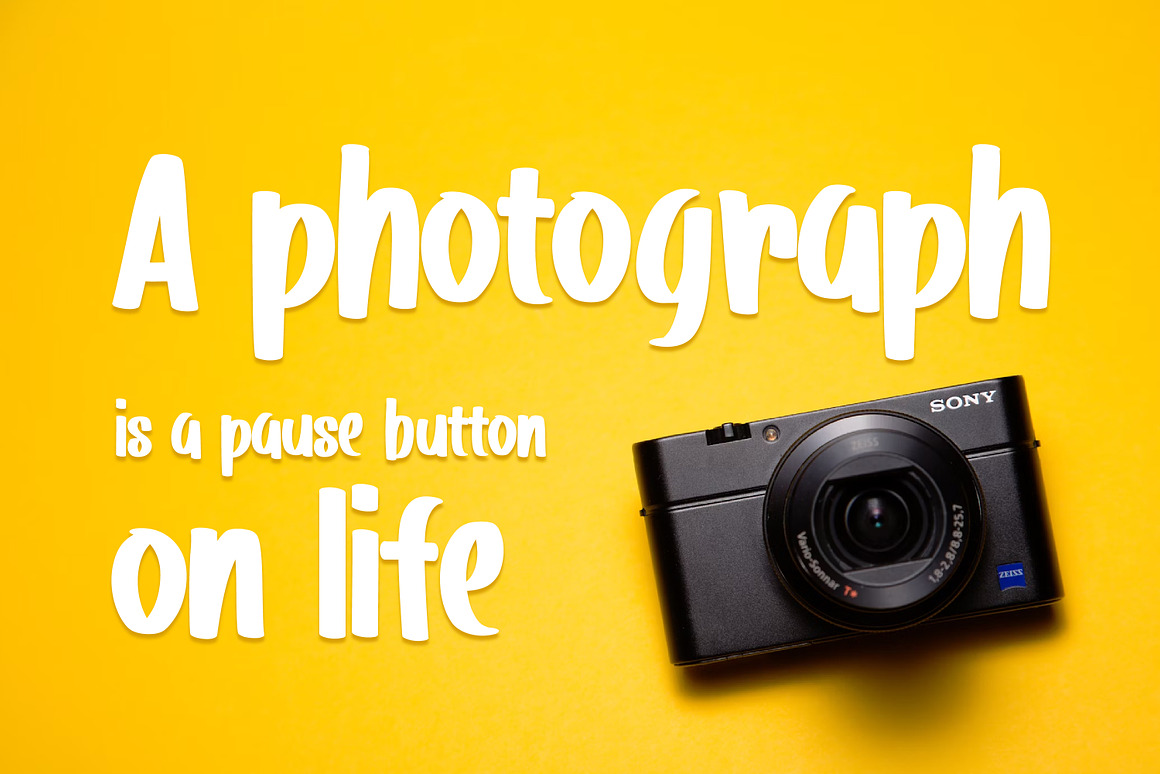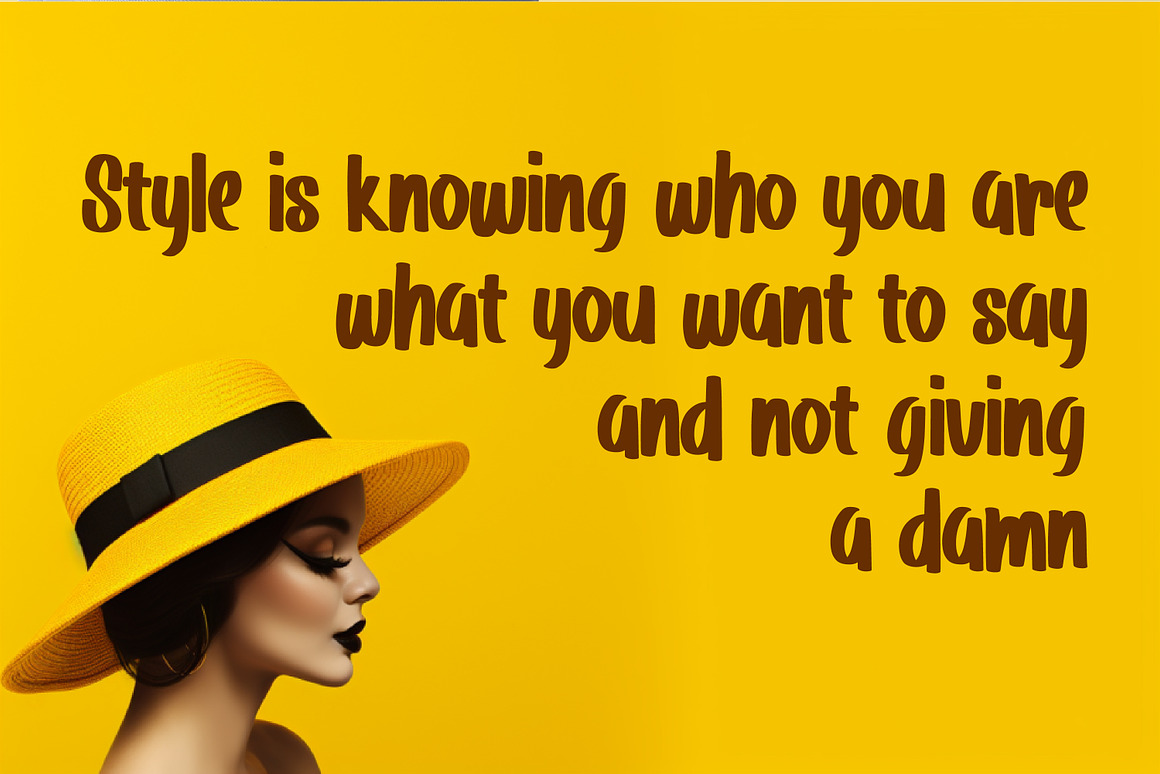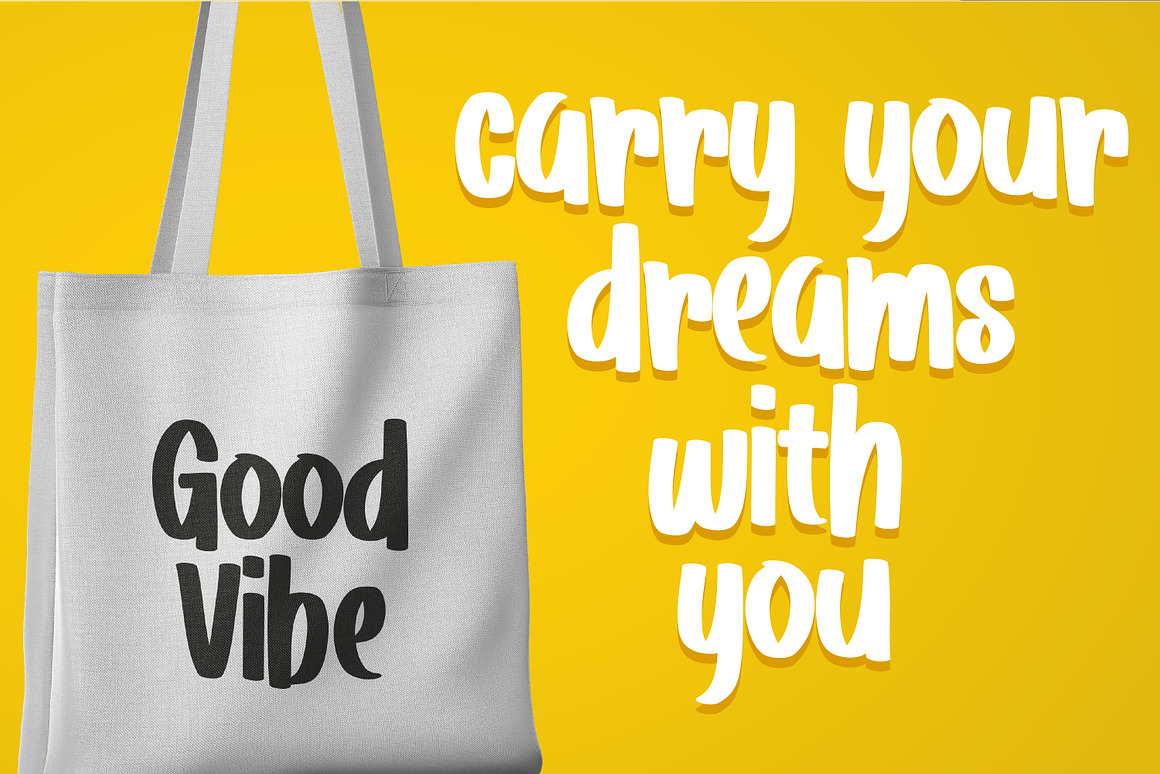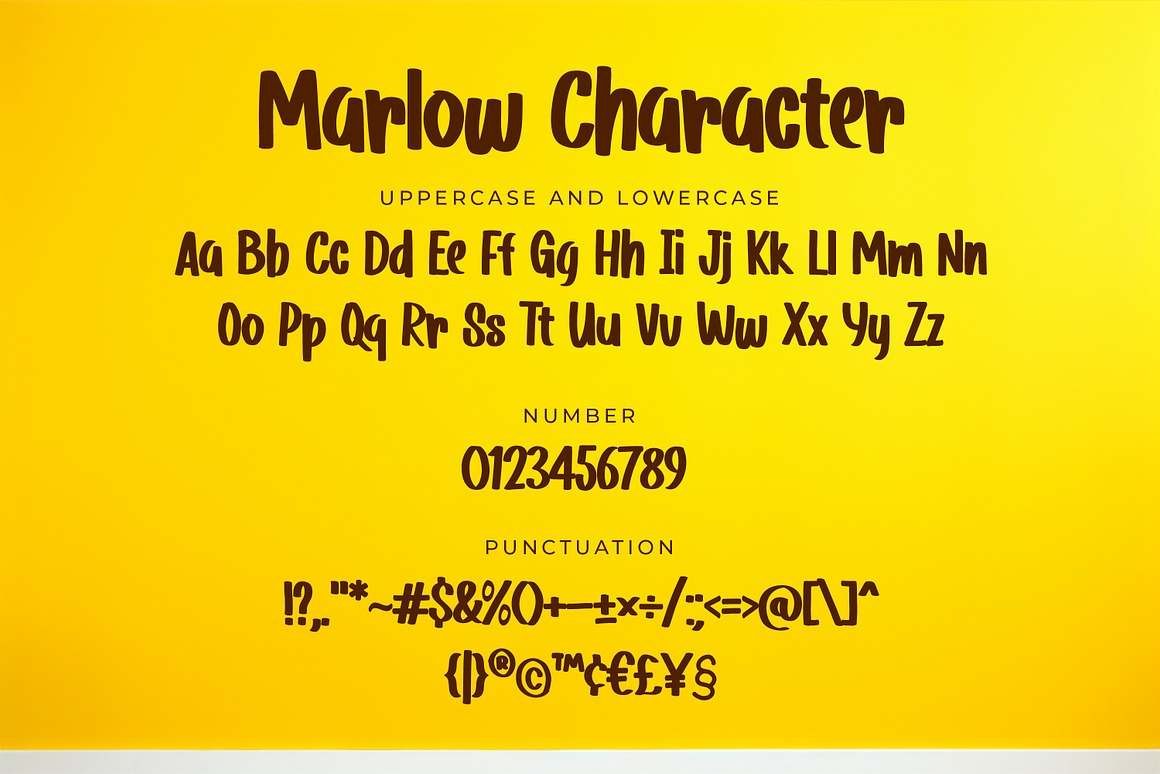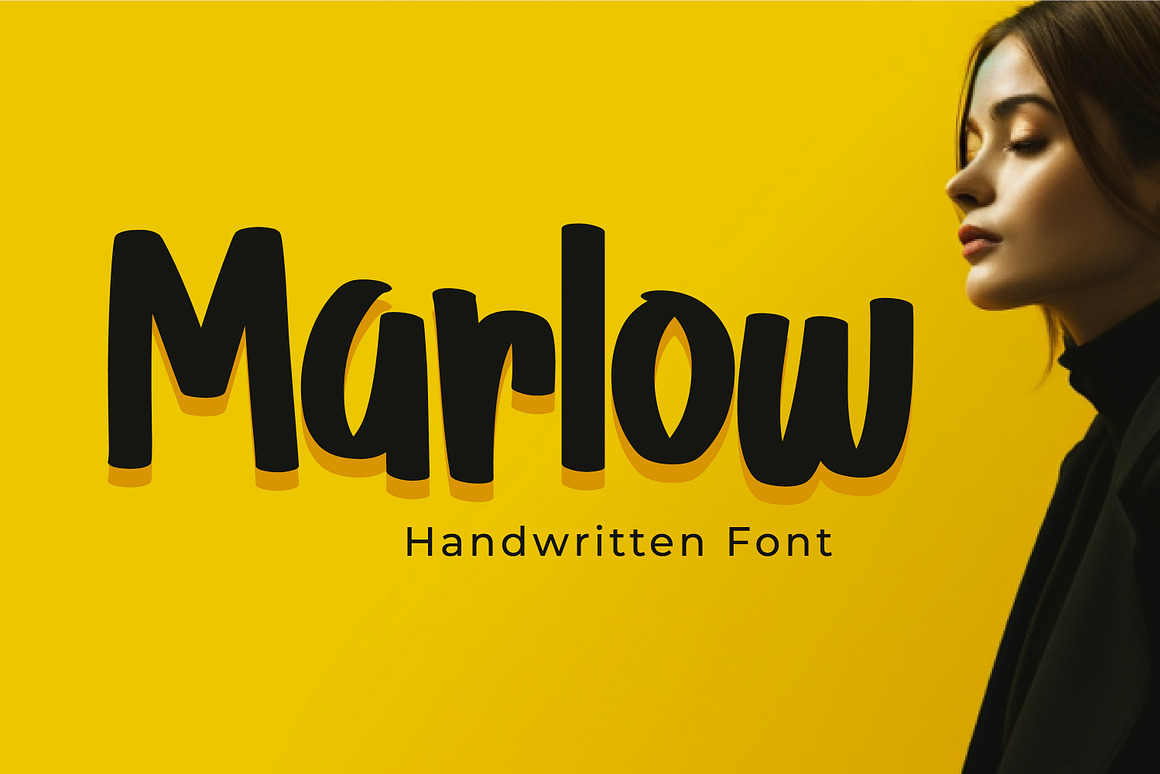
Marlow Handdrawn Brush
Introducing Marlow A stunning handwritten font that effortlessly blends elegance with a personal touch! With its beautifully crafted letters and charming flow, Marlow adds warmth and authenticity to your designs, making it perfect for everything from stylish invitations and branding to heartfelt notes and creative projects.